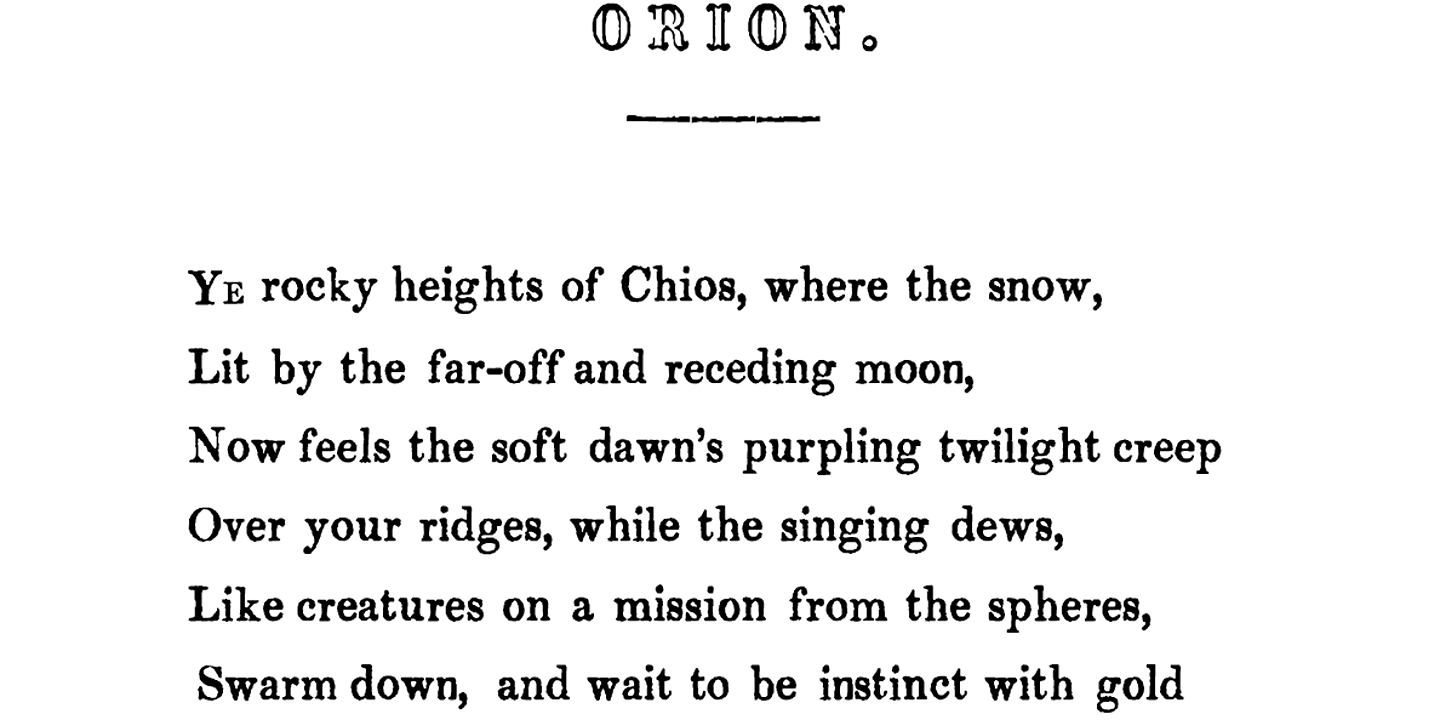
R H Horne Orion Font Free Download is a sophisticated serif typeface designed with a modern touch, blending classic letterforms with contemporary elements. Ideal for high-end branding, editorial design, logos, and print materials, this font offers a unique, elegant style while maintaining legibility and versatility. R H Horne Orion Font’s refined details make it perfect for designs that require a luxurious and professional aesthetic.
With R H Horne Orion Font Free Download, you’ll receive a complete set of uppercase letters, lowercase, numbers, and essential punctuation, providing flexibility for a wide range of creative applications. Whether you’re working on a prestigious brand identity, crafting sophisticated marketing materials, or designing stylish editorial content, this font ensures clarity and elegance throughout.
Add a refined and timeless touch to your designs with R H Horne Orion Font Free Download. Its elegant, classic design makes it an excellent choice for projects that need sophistication and professionalism.